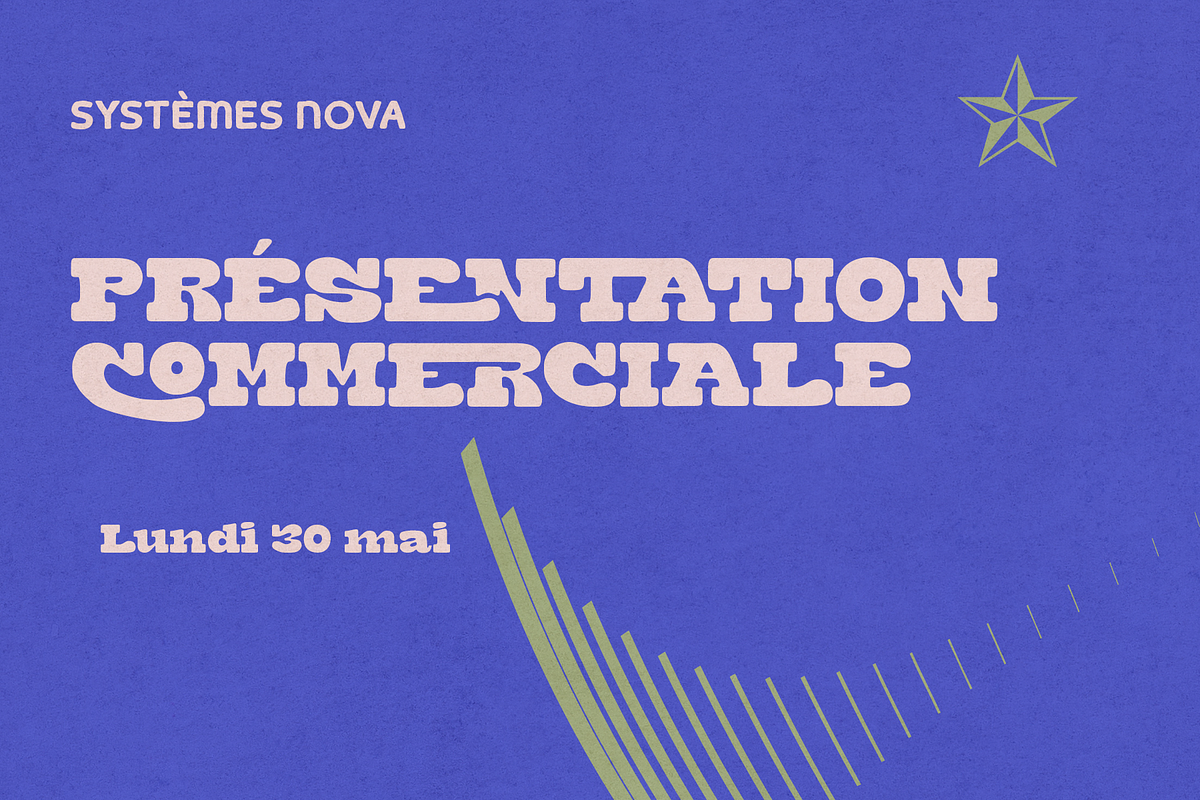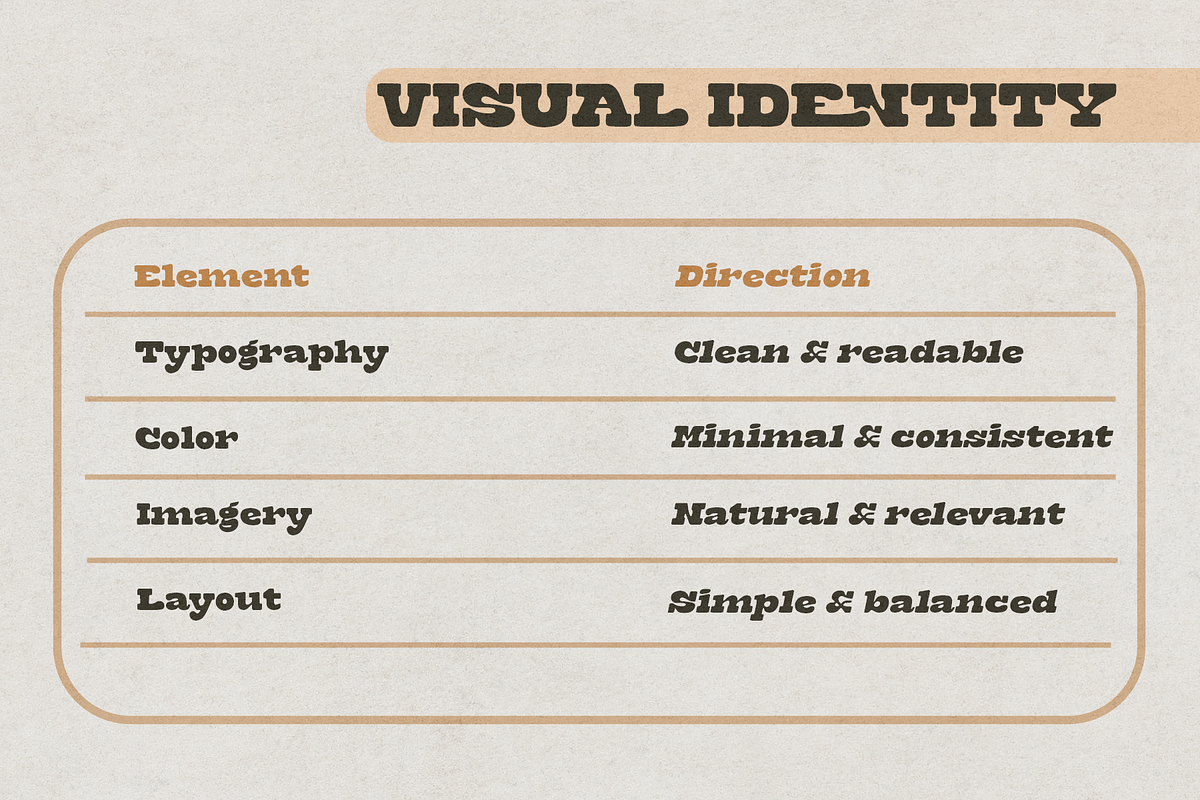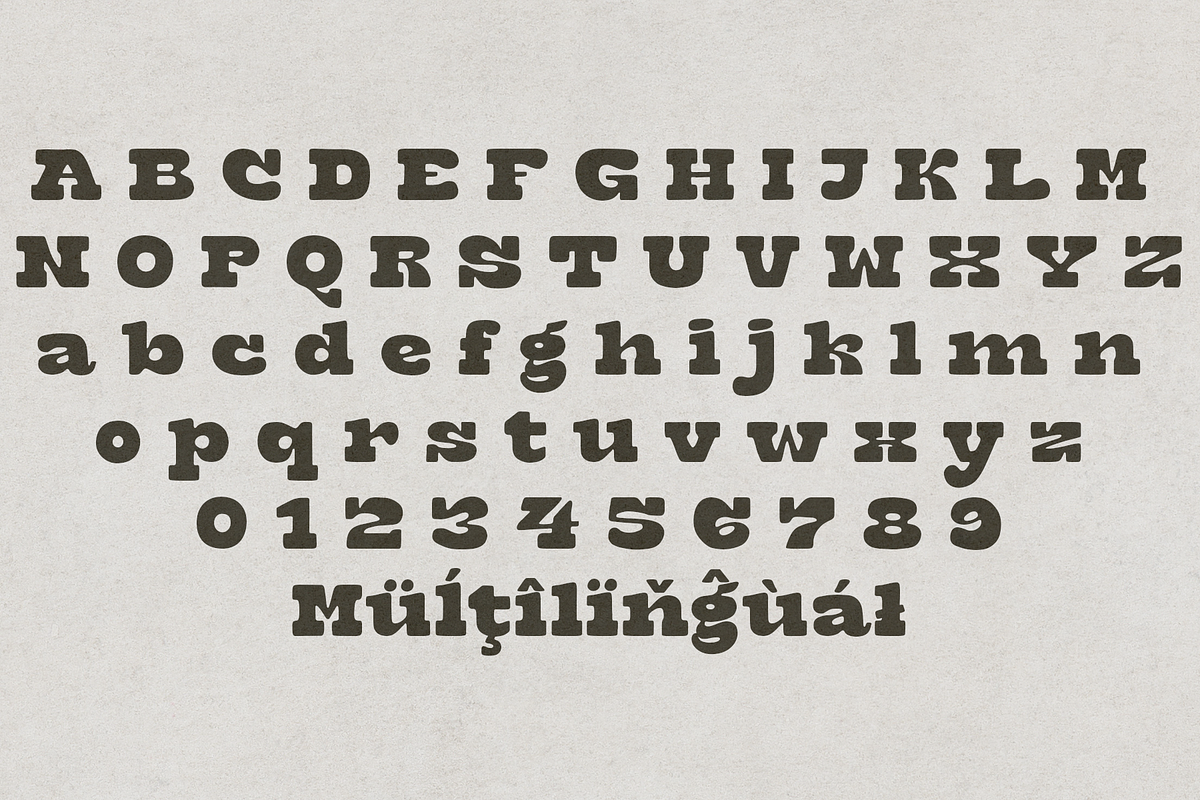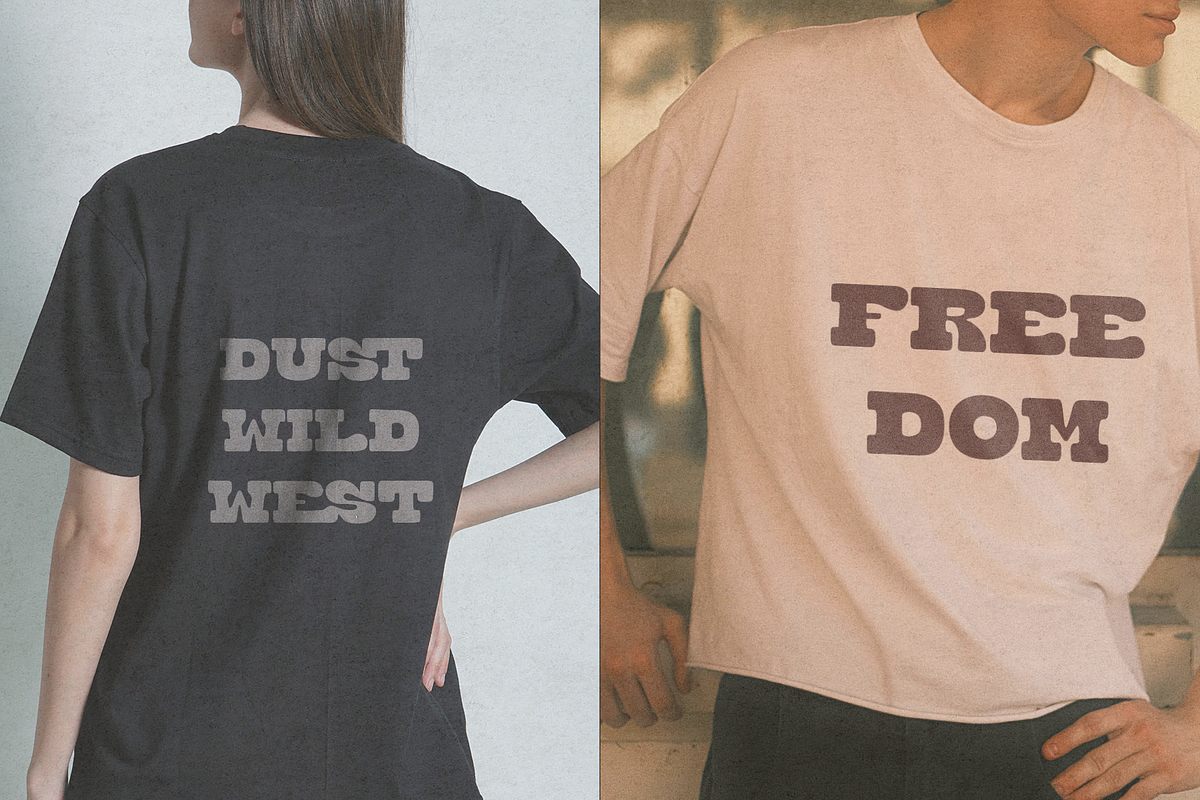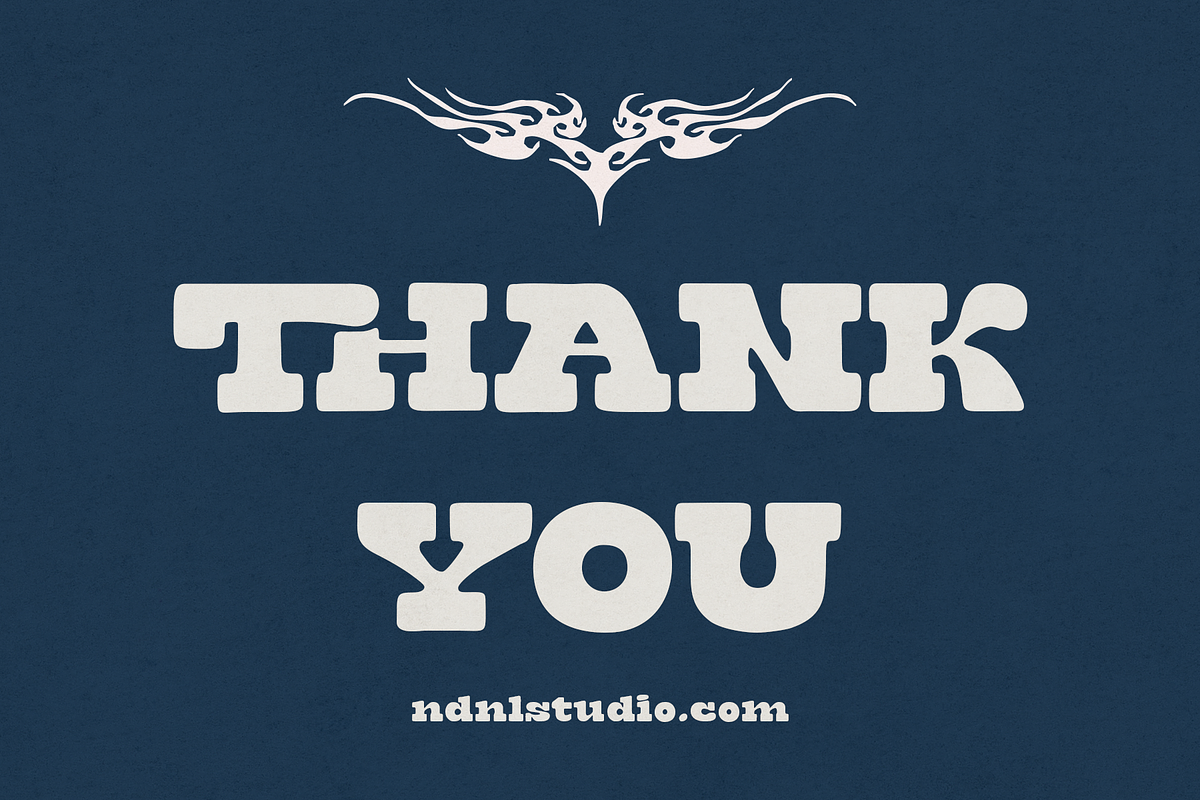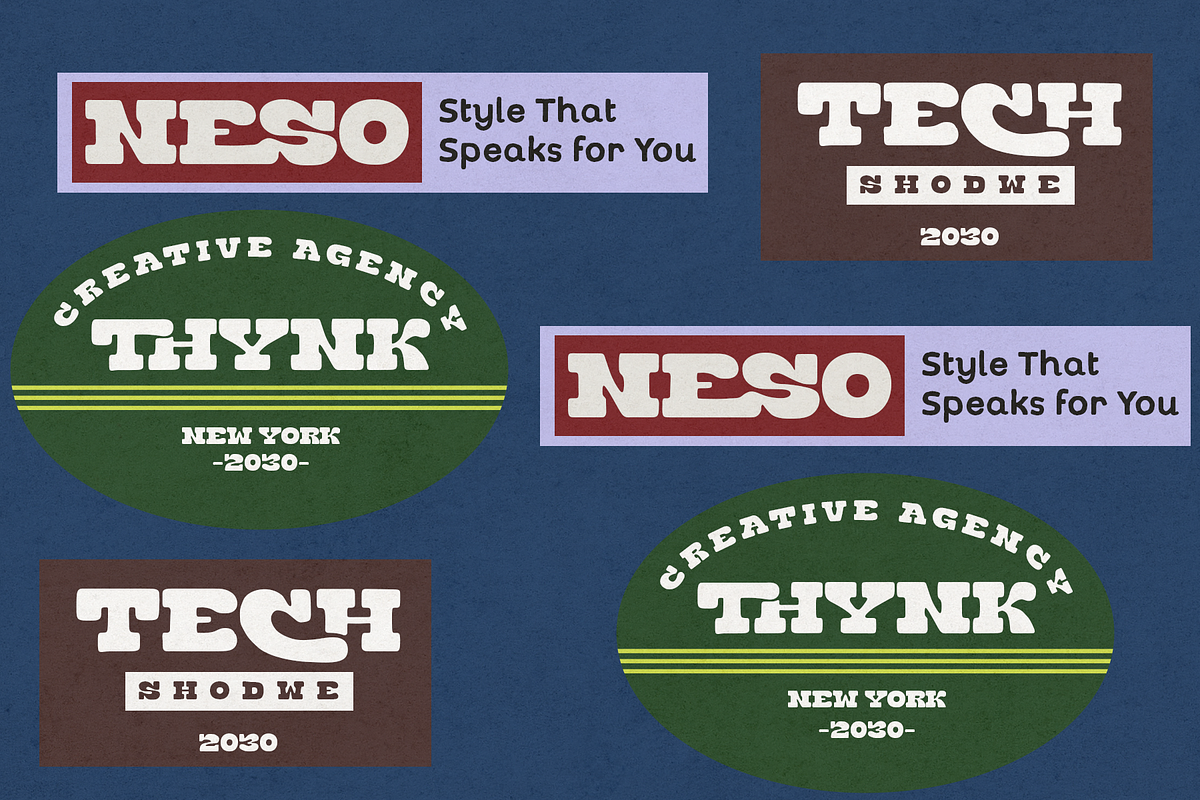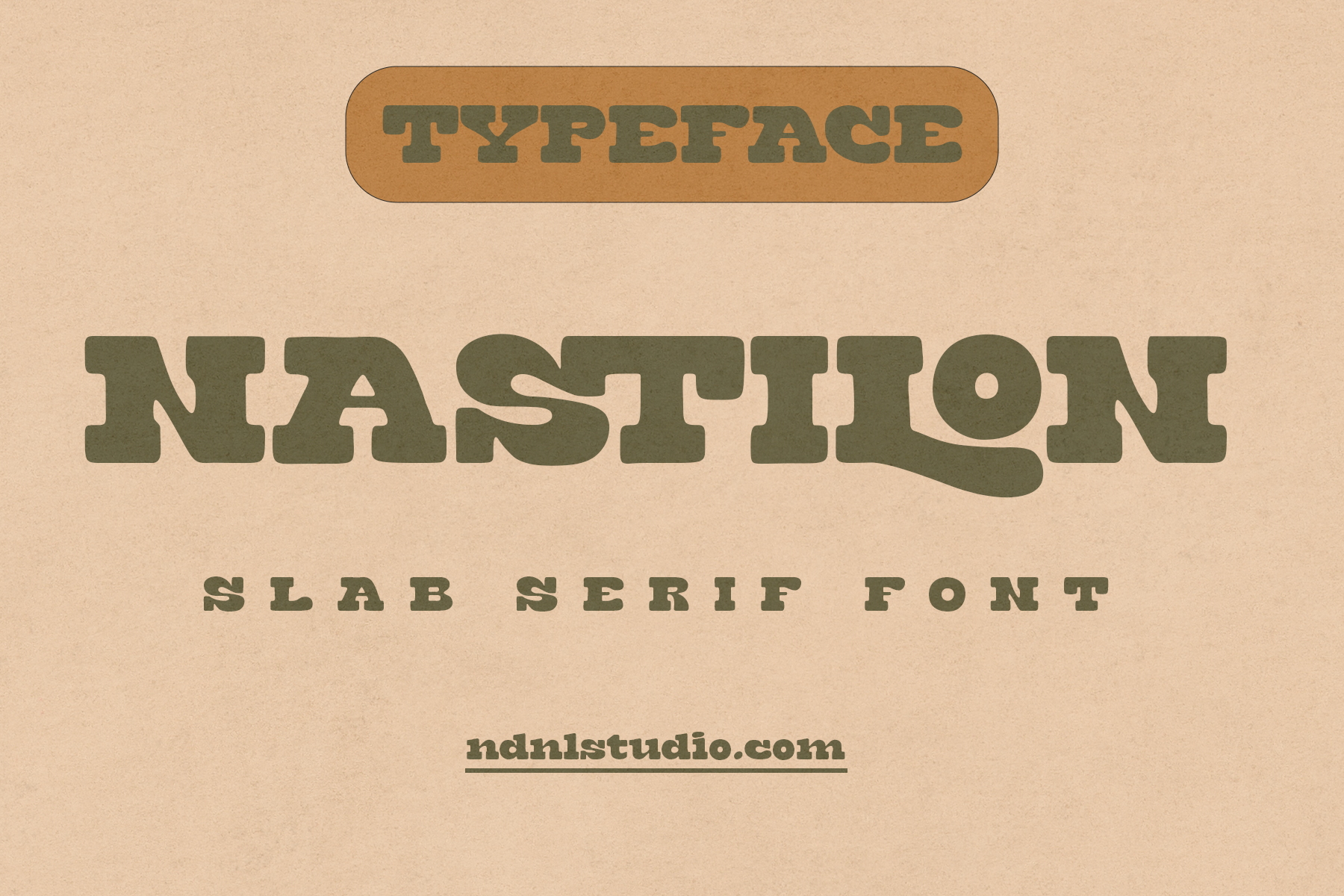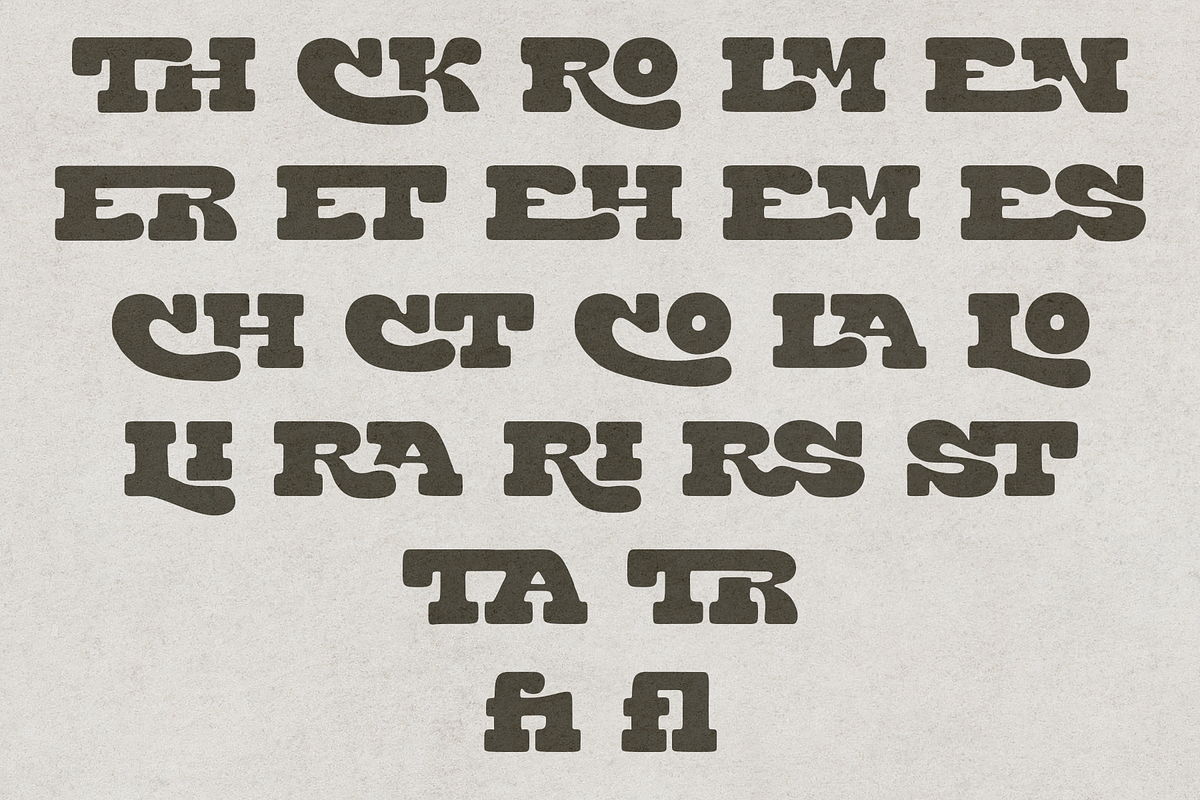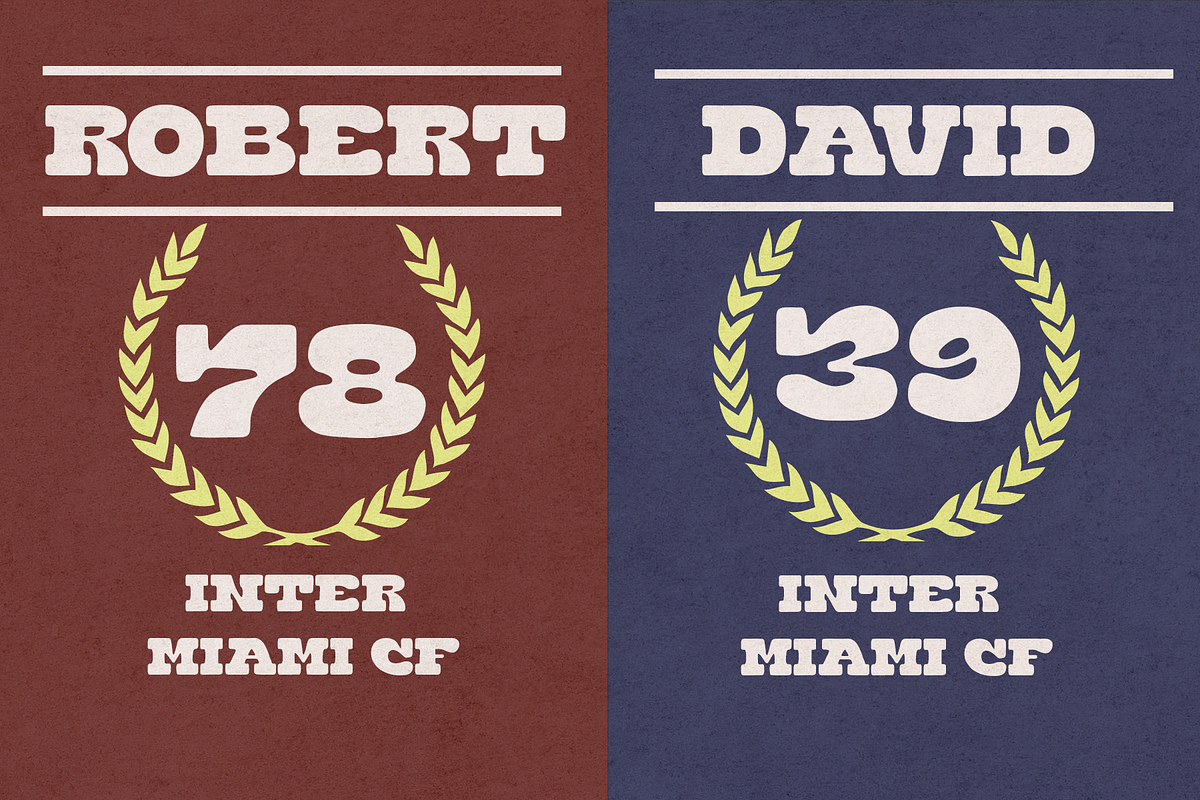
Nastilon – Slab Serif Font
Nastilon is a bold slab serif font with a strong retro character and a distinctive vintage-inspired appearance. Its heavy letterforms, sturdy serifs, and organic curves create a confident and expressive personality, making it perfect for designs that need a powerful visual presence.
Nastilon works beautifully for logos, branding, posters, headlines, packaging, badges, apparel designs, editorial layouts, and retro-inspired artwork. Its bold and sturdy construction gives typography a classic feel while adding a playful, contemporary touch.
– Character set A-Z
– Uppercase & Lowercase
– Numerals & Punctuation
– Accented Characters (West Europe)
– Ligatures